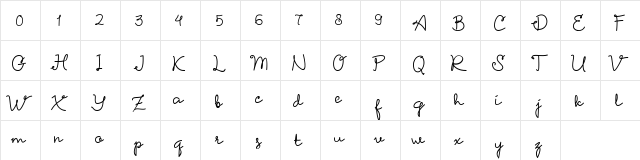
Petunia Regular
| Foundry | nami_studio |
| Designer | namistudio |
Design Context for Petunia Typeface
Petunia takes a measured approach to typography — its balanced proportions and neutral character make it a reliable workhorse for both digital and print work.